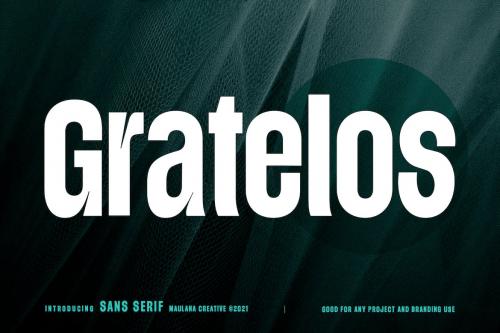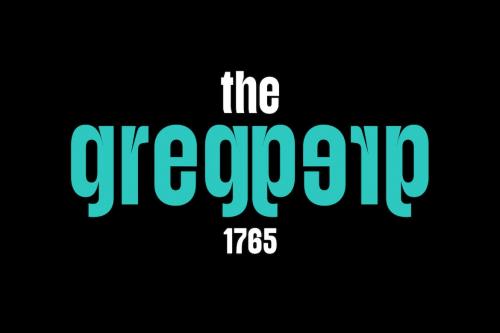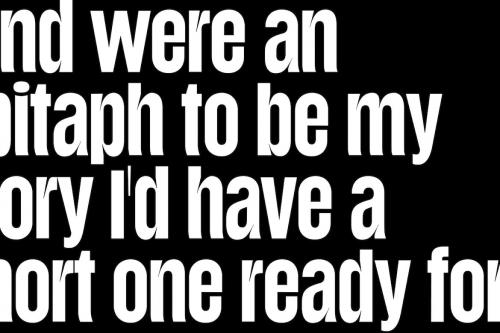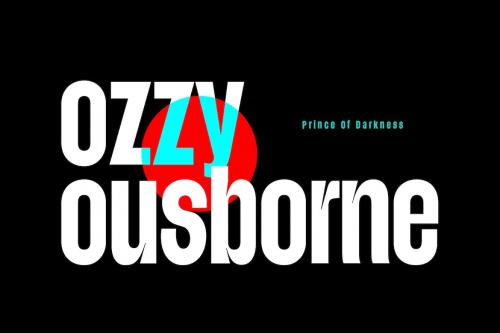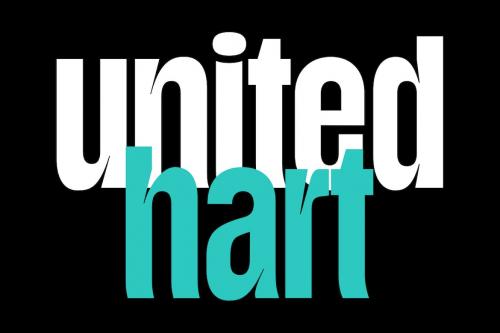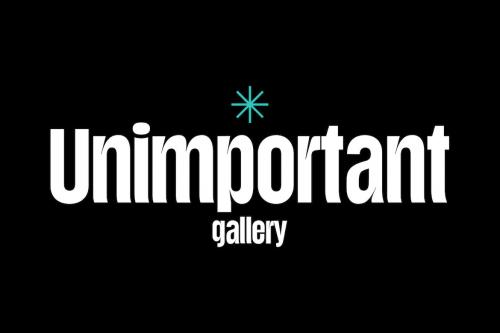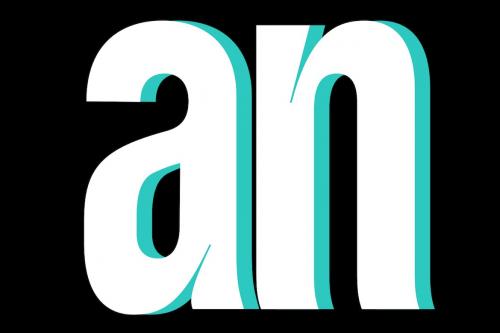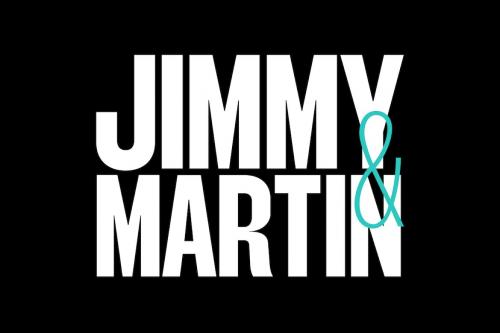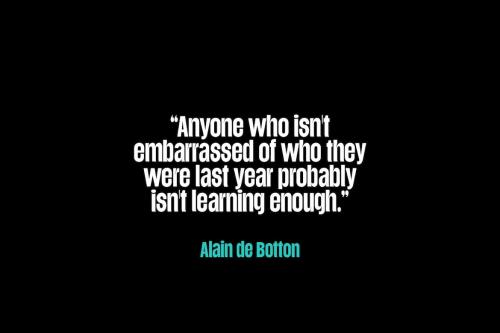
GRATULOS CONDENSED DISPLAY FONT
Gratelos Condensed Display Font
Gratelos is a modern sans serif display font. With condensed bold stroke, fun character with some of ligatures. To give you an extra creative work. Gratelos font support multilingual more than 100+ language. This font is good for logo design, Social media, Movie Titles, Books Titles, a short text even a long text letter and good for your secondary text font with script or signature typeface. Make a stunning work with Gratelos font.